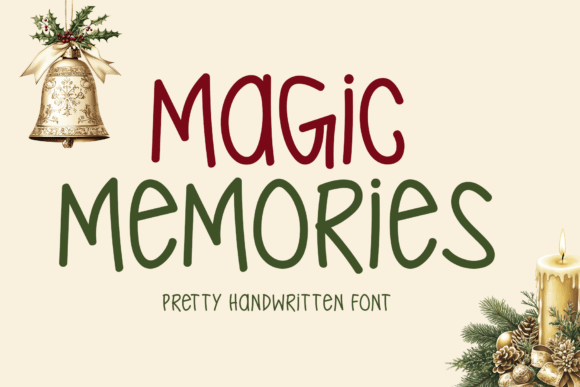
Magic Memories Font: Adding a Touch of Whimsy to Your Designs
Are you looking for a font that can bring a dash of warmth, style, and creativity to your designs? Look no further than the Magic Memories Font. This beautiful, handwritten typeface is perfect for a wide range of projects, from t-shirts and greeting cards to branding, web headers, flyers, photo frames, and more.
What is Magic Memories Font?
Magic Memories is a carefully crafted, handwritten font that is designed to evoke a sense of joy and personality in your designs. Its handcrafted charm makes it perfect for projects that require a touch of whimsy and creativity. Whether you’re working on a casual or professional project, Magic Memories adapts effortlessly to deliver a unique and captivating visual experience.
Key Features of Magic Memories Font
- Handwritten style: Magic Memories boasts a beautiful, handwritten style that adds a personal touch to your designs.
- Warm and inviting: The font’s warm and inviting tone makes it perfect for projects that require a friendly and approachable feel.
- Versatile: Magic Memories is incredibly versatile and can be used for a wide range of projects, from casual to professional.
- Easy to read: Despite its handwritten style, Magic Memories is easy to read and understand, making it perfect for body text and headlines.
Use Cases for Magic Memories Font
Magic Memories Font is perfect for a wide range of projects, including:
- T-shirts and apparel: Add a touch of personality to your t-shirts and apparel with Magic Memories.
- Greeting cards and invitations: Create beautiful, handmade-style greeting cards and invitations with Magic Memories.
- Branding and packaging: Use Magic Memories to add a touch of whimsy and creativity to your branding and packaging.
- Web headers and titles: Add a touch of elegance and sophistication to your web headers and titles with Magic Memories.
- Flyers and brochures: Create eye-catching flyers and brochures with Magic Memories.
- Photo frames and albums: Add a touch of personality to your photo frames and albums with Magic Memories.
Why Choose Magic Memories Font?
There are many reasons why Magic Memories Font stands out from the crowd. Here are just a few:
- Unique and creative: Magic Memories is a unique and creative font that will help your designs stand out.
- High-quality: Magic Memories is a high-quality font that is designed to deliver exceptional results.
Tips for Using Magic Memories Font
Here are a few tips for getting the most out of Magic Memories Font:
- Use it sparingly: Magic Memories is a bold font, so use it sparingly to avoid overwhelming your designs.
- Experiment with colors: Magic Memories looks great in a wide range of colors, so experiment to find the perfect hue for your design.
- Pair it with other fonts: Magic Memories pairs well with other fonts, so don’t be afraid to experiment with different combinations.
- Use it for headlines: Magic Memories is perfect for headlines and titles, so use it to add a touch of personality to your designs.
In conclusion, Magic Memories Font is a beautiful, handwritten typeface that is perfect for adding a touch of warmth, style, and creativity to your designs. Its versatility, ease of use, and high-quality design make it an excellent choice for a wide range of projects. Whether you’re working on a casual or professional project, Magic Memories is sure to deliver exceptional results.